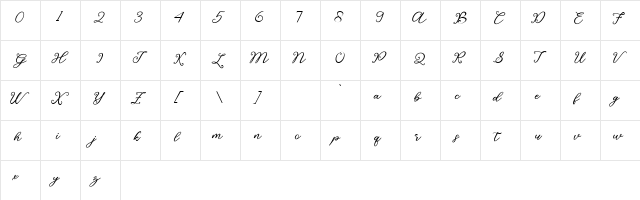
Say love Regular
Design Context for Say love Typeface
Say love is a composed and adaptable typeface that performs quietly and consistently across a wide range of design contexts.